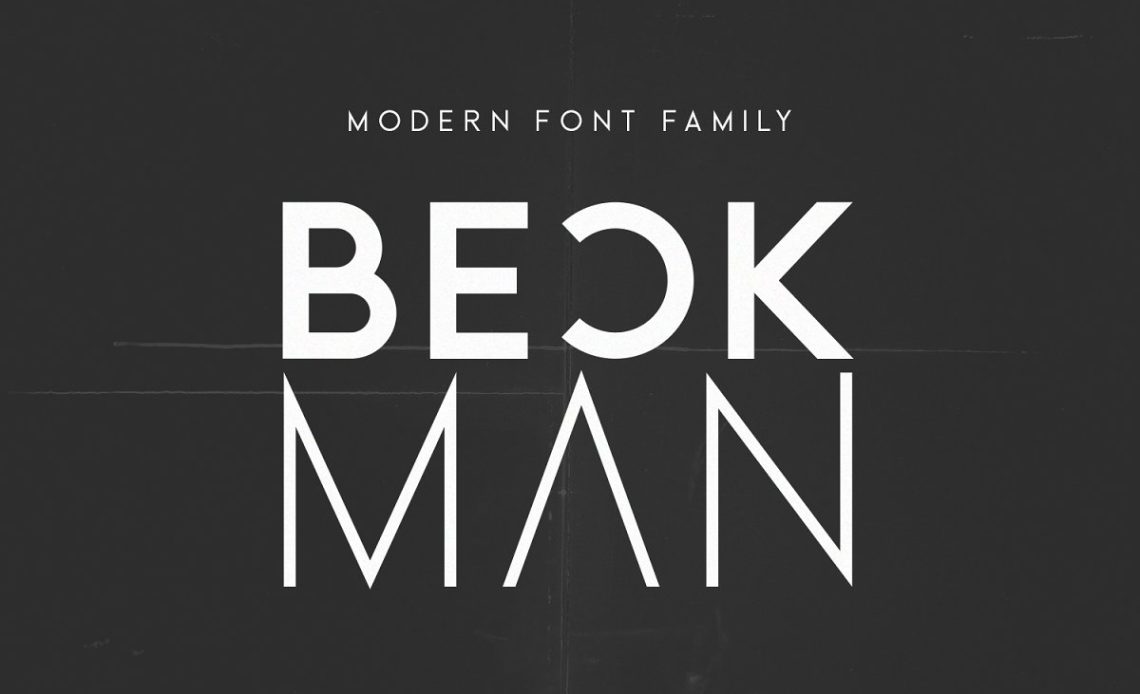
Introducing Beckman Modern Font, the ultimate choice for branding and design enthusiasts! Created by FactoryType Studio, this sans-serif font family is the epitome of modern and minimalist design. With its combination of minimal and geometric elements, Beckman brings a fresh and contemporary feel to any project.
Featuring six fonts, including clean and modern caps, Beckman offers unparalleled variability. Each weight of the font has been meticulously crafted to ensure the highest quality and versatility. Whether you're creating captivating headlines, designing a stunning logo, or curating a visually striking magazine, Beckman is the perfect choice to elevate your work to new heights.
But what sets Beckman apart from other fonts? Its alternate glyphs add a touch of uniqueness and creativity to your designs, allowing you to truly stand out from the crowd. With Latin alphabets supported, you can effortlessly communicate your message to a global audience.
Why settle for ordinary when you can have extraordinary? Beckman Modern Font is the key to unlocking limitless design possibilities. Its captivating and eye-catching aesthetics will leave a lasting impression on your audience, making your brand unforgettable.